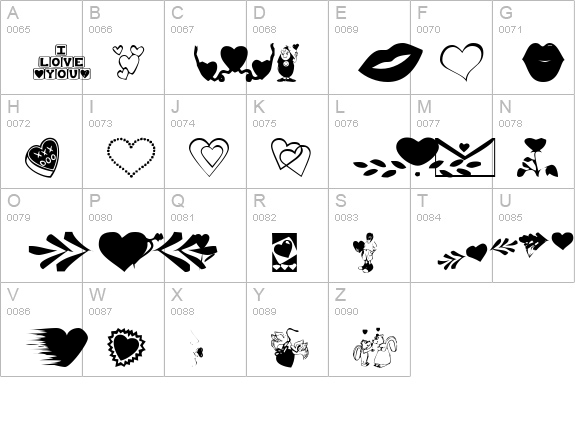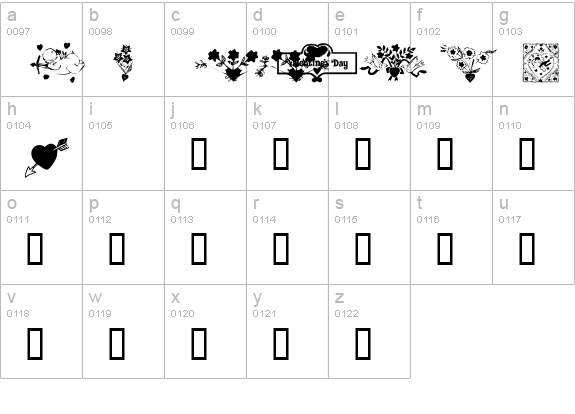
KR Be Mine More Font Details
The KR Be Mine More font is a charming and whimsical typeface that exudes a delightful and playful vibe. With its elegant curves and stylish flourishes, this font is perfect for adding a touch of romance and sweetness to your designs. Whether you are creating invitations, greeting cards, or love notes, KR Be Mine More is sure to capture hearts with its endearing appeal. What's even better is that this lovely font is available for free download at FontsMarket.com. You can easily add this delightful typeface to your collection without any cost, making it a wonderful addition to your design resources. So go ahead and infuse your projects with love and warmth using the enchanting KR Be Mine More font.